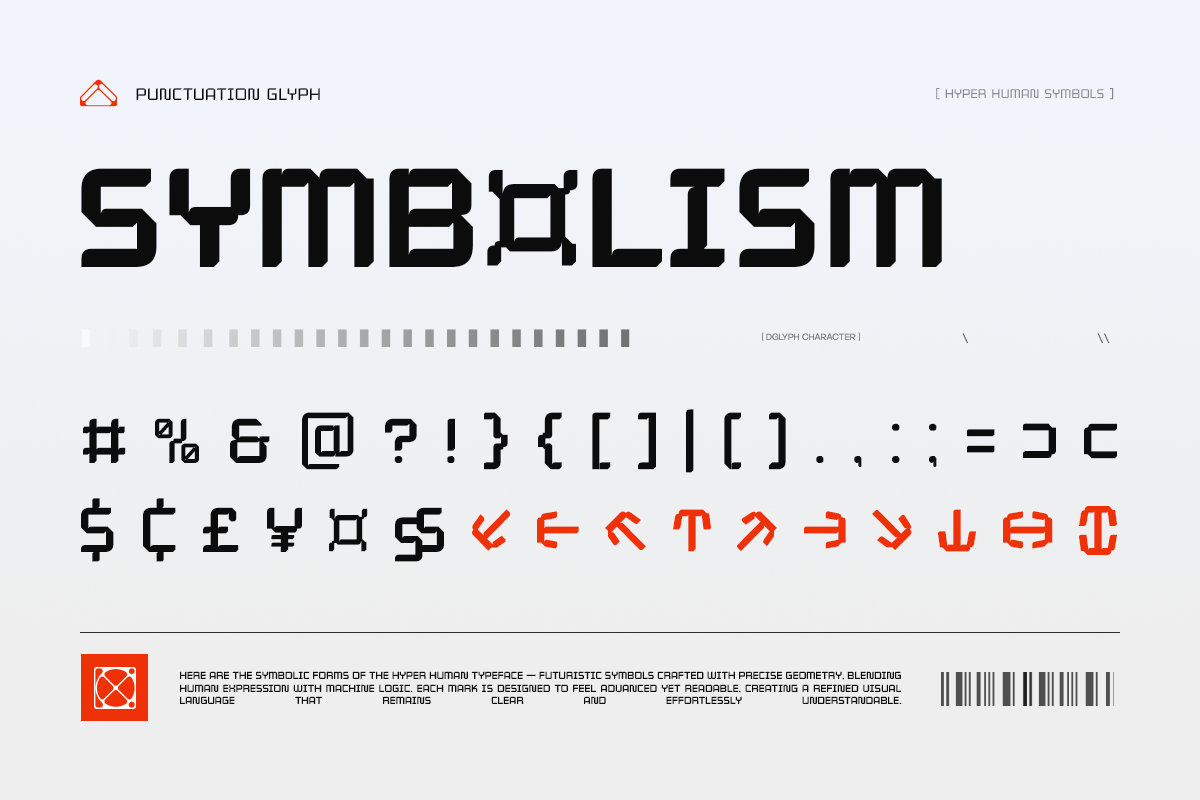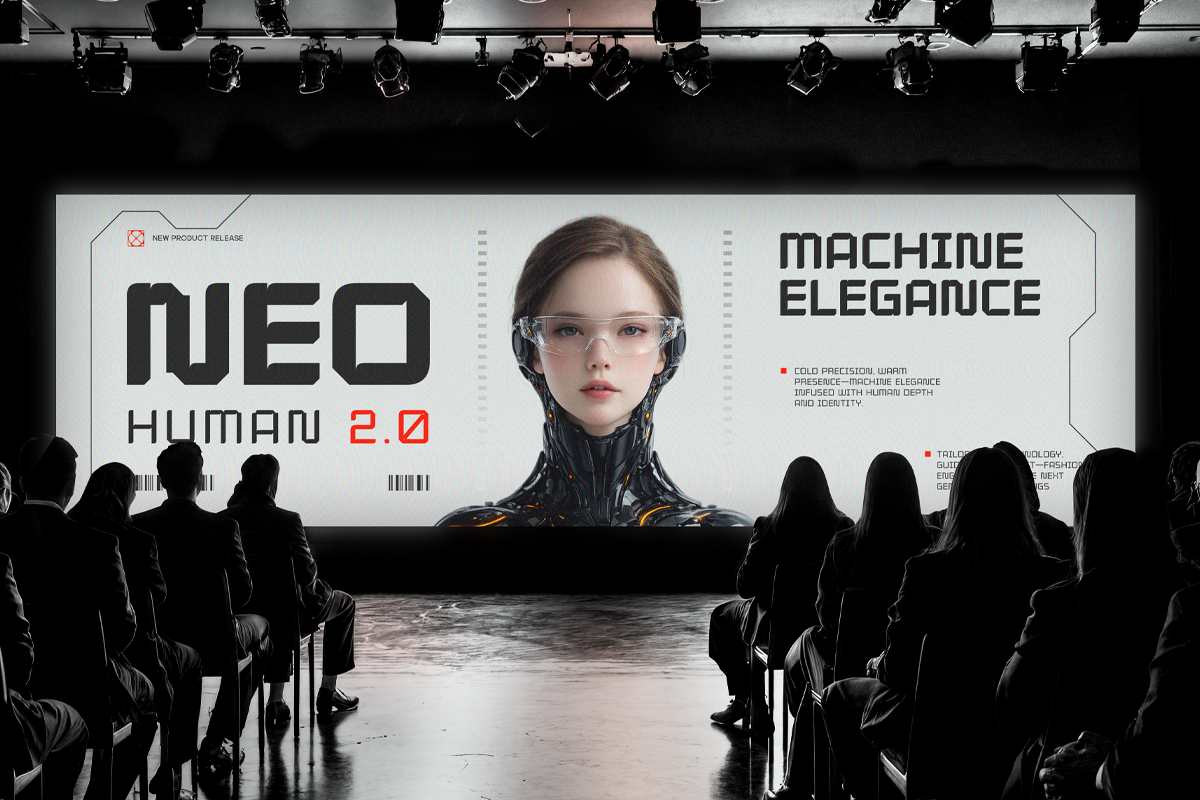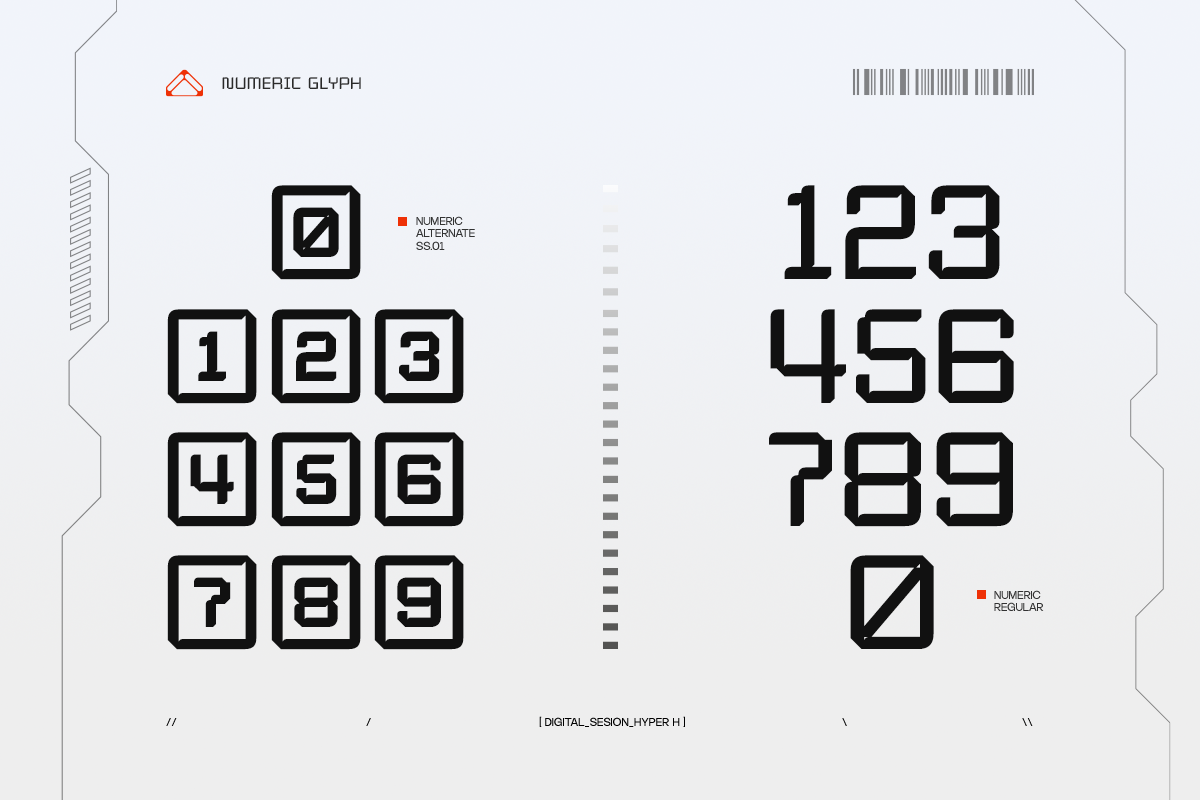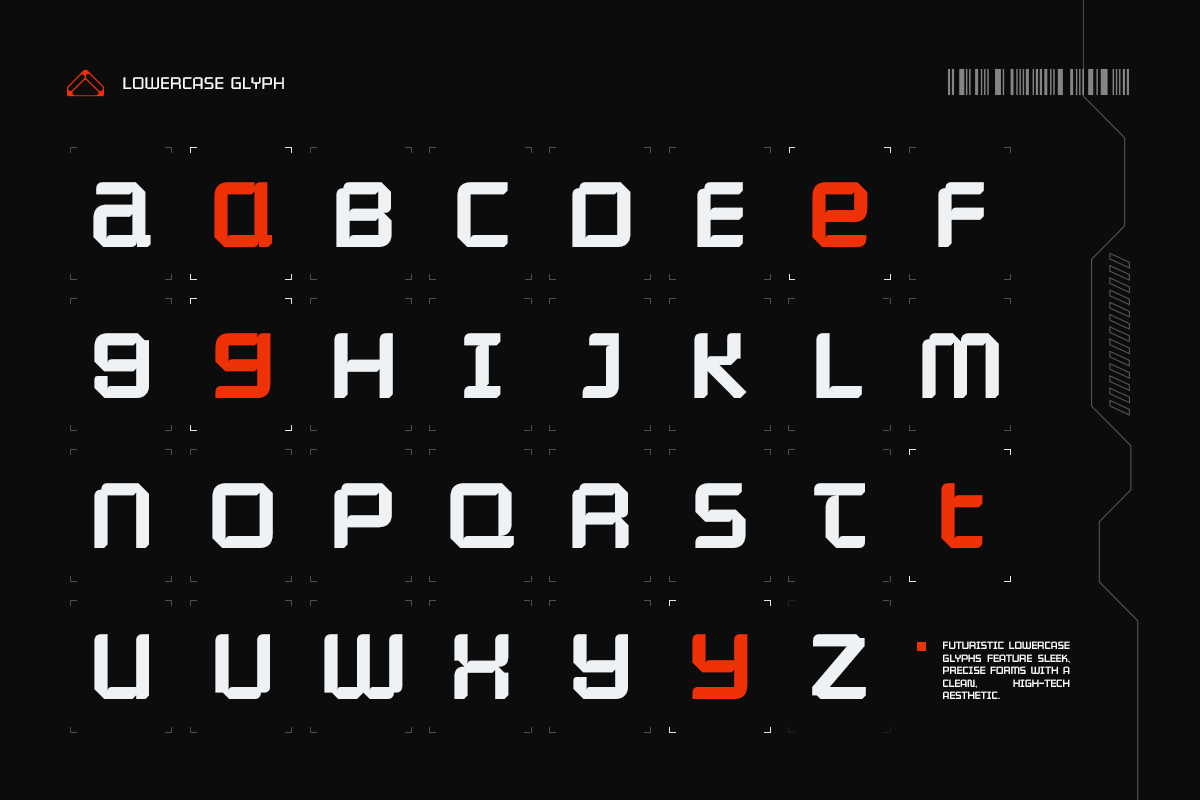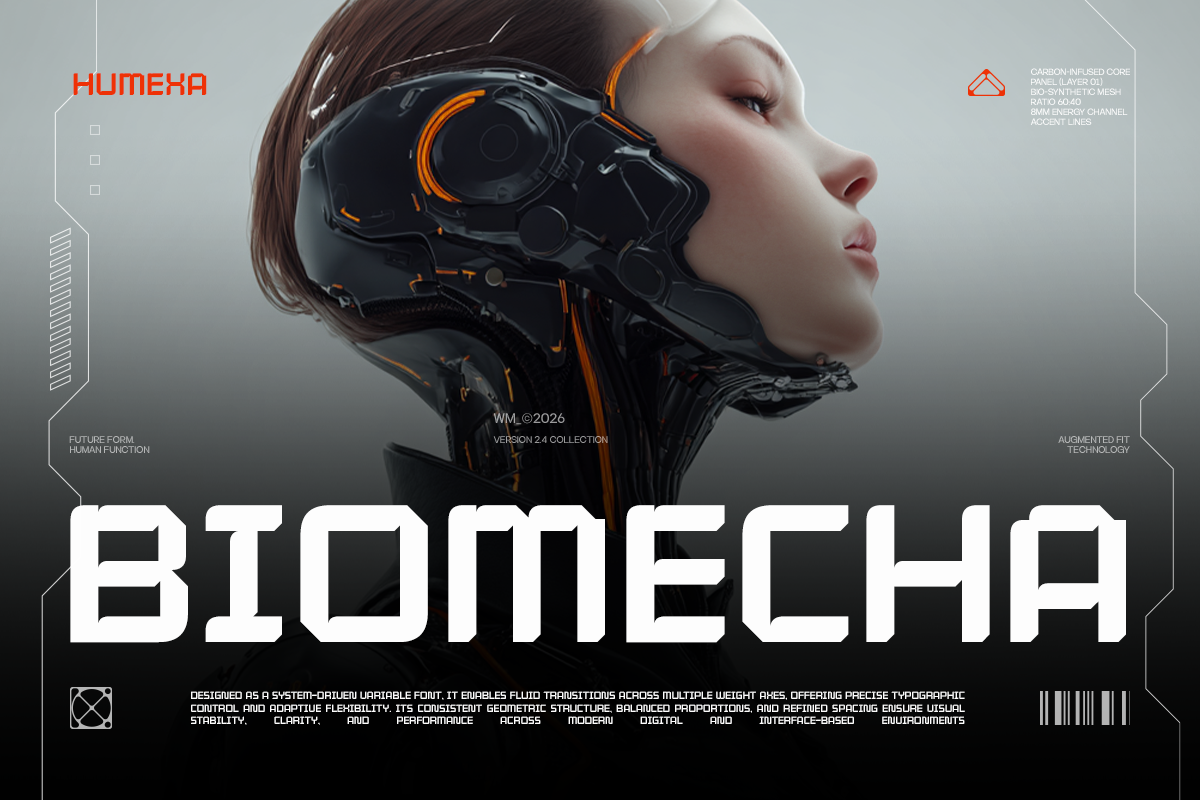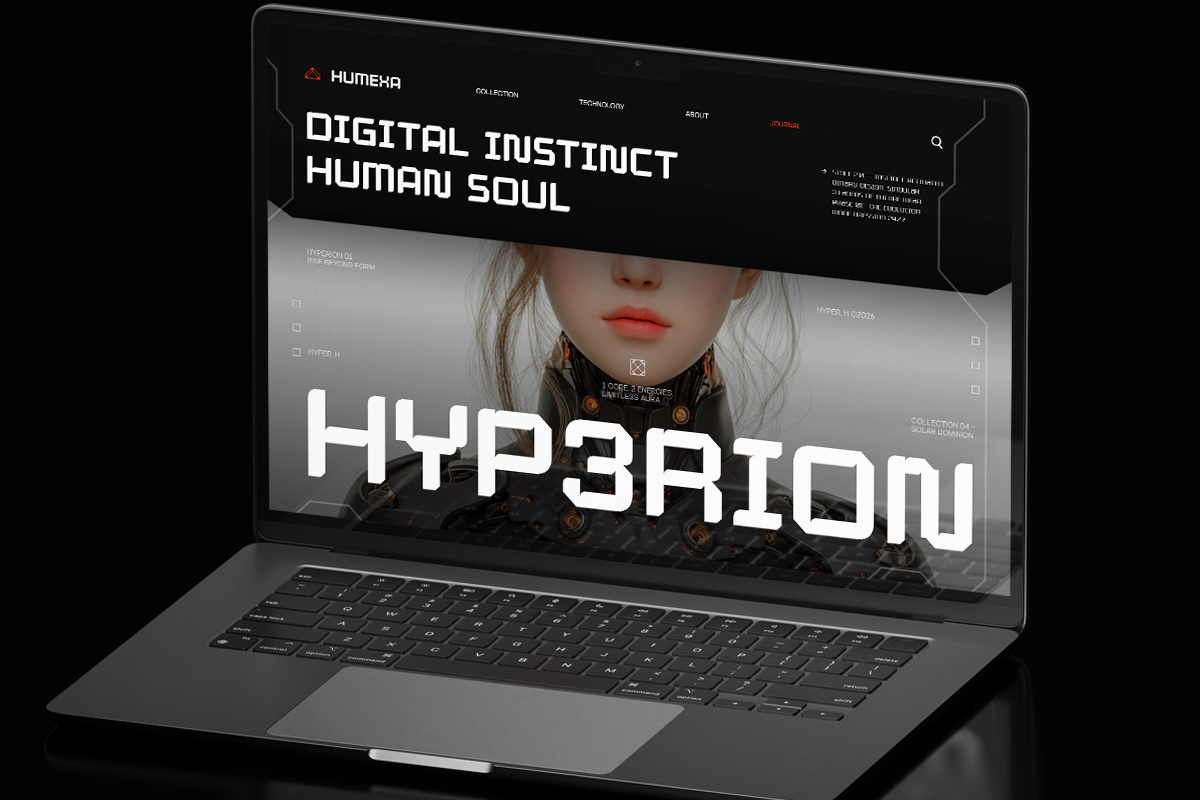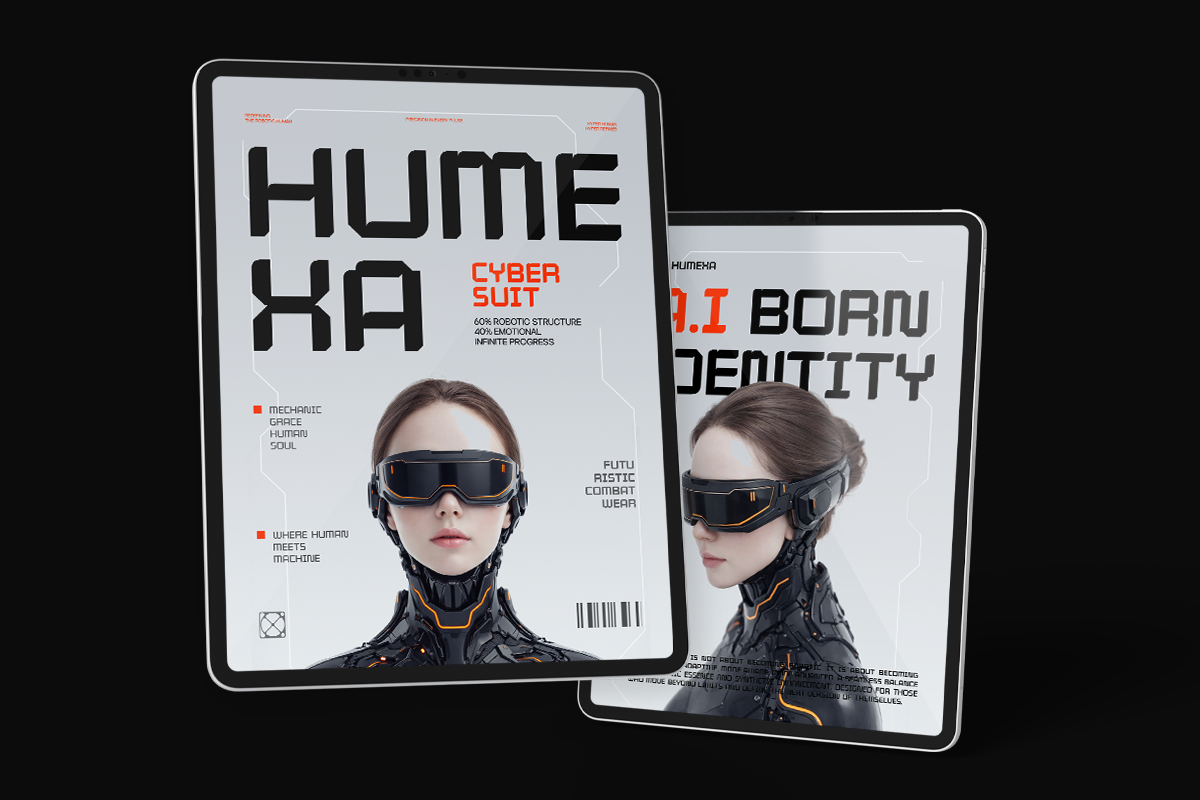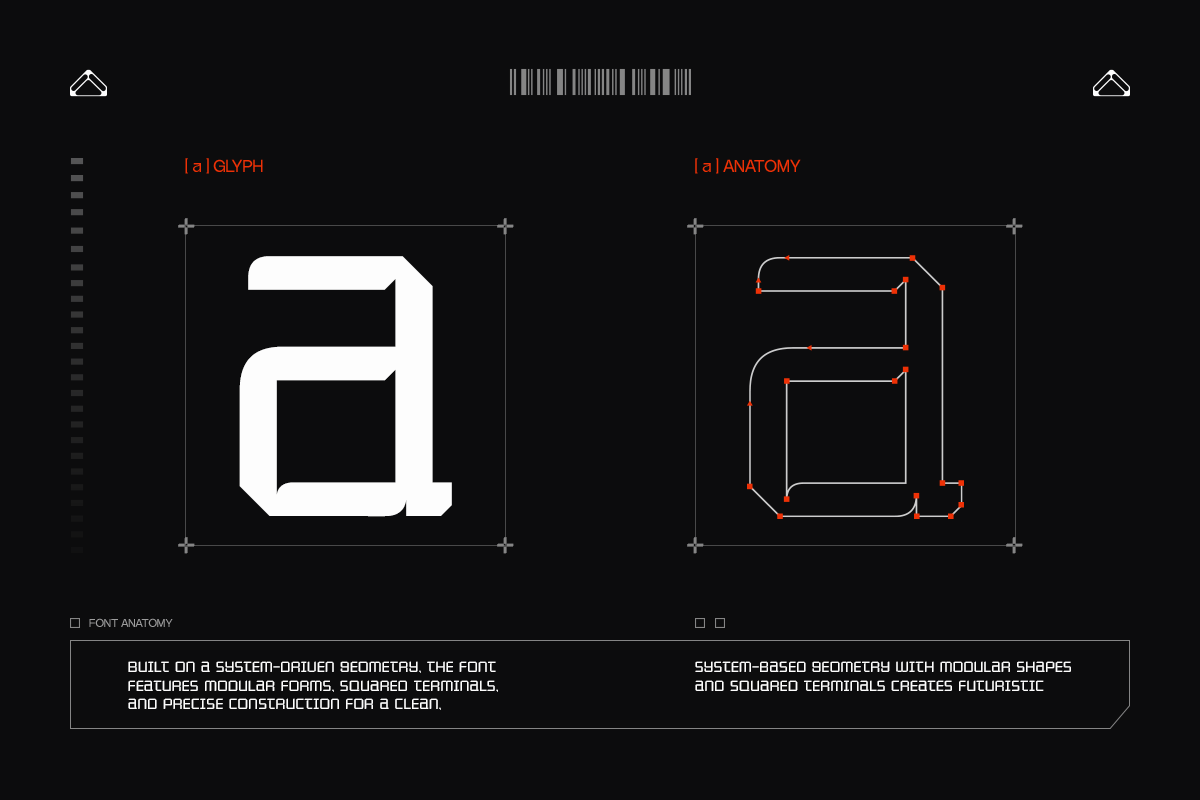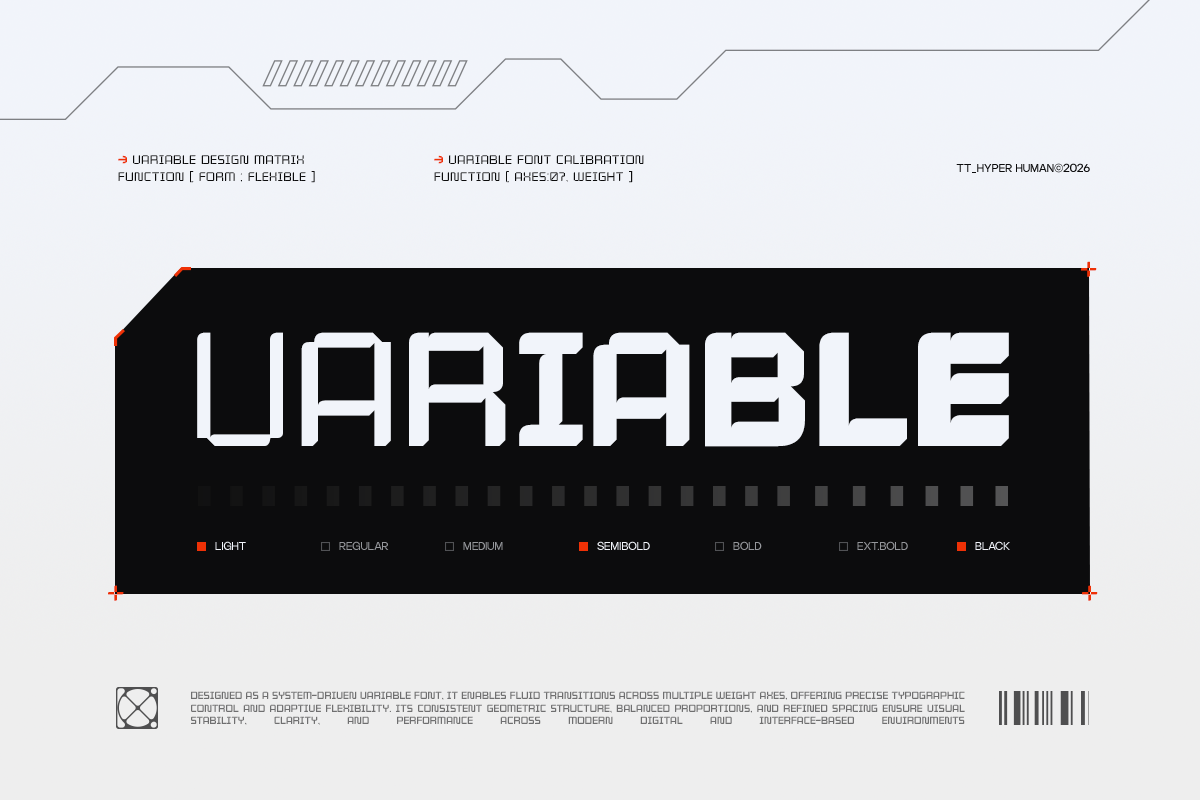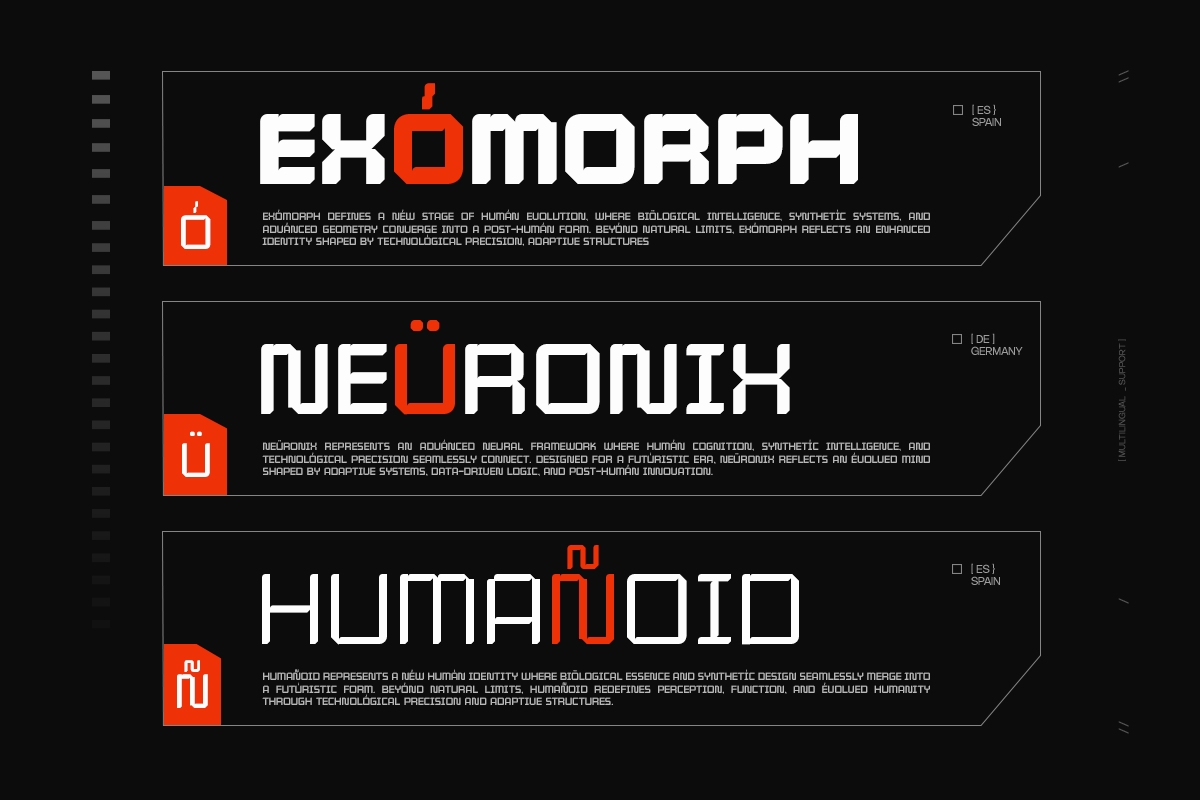
GC Hyper Human – Futurist Tech Sans
GC Hyper Human – Futuristic Tech Sans is a futuristic technology sans typeface engineered for innovation, precision, and next-generation visual communication. Built with sharp geometric construction, angular terminals, and a modular letterform system, GC Hyper Human delivers a bold technological identity that feels clean, intelligent, and unmistakably modern.
Inspired by advanced interfaces, sci-fi aesthetics, and digital architecture, GC Hyper Human combines structured geometry with futuristic detailing to create a distinctive visual language. Its balanced proportions and precise forms provide exceptional readability while projecting a strong, system-driven character, making it ideal for technology branding, gaming, UI/UX design, posters, product launches, and futuristic editorial layouts.
As a variable typeface, GC Hyper Human features a flexible 7-weight axis, allowing designers to build dynamic typographic hierarchies while maintaining a consistent futuristic identity across print and digital media. Every weight preserves the font's geometric precision, ensuring seamless scalability without compromising its bold visual presence.
Whether you're creating cutting-edge brand identities, cyber-inspired interfaces, motion graphics, or high-tech marketing campaigns, GC Hyper Human delivers modern typography built for the future.
* Futuristic Technology Sans Typeface
* Variable Font (7 Weight Axis)
* Sharp Geometric Construction
* Modular Sci-Fi Inspired Letterforms
* Clean & System-Oriented Design
* Strong Visual Presence
* Perfect for Technology, Gaming & UI Design
* Suitable for Branding, Posters, Editorial & Motion Graphics
* Multilingual Support (170+ Languages)
GC Hyper Human delivers futuristic precision — a modern tech sans typeface crafted to power bold identities, intelligent interfaces, and tomorrow's visual communication.